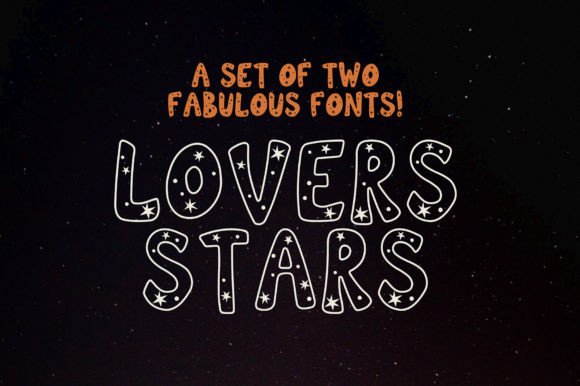
Embark on a cosmic adventure with Lovers Stars Font, the most dazzling font that will ignite your creativity and elevate your designs to stellar heights. Enter a realm of imagination where stars twinkle and hearts intertwine, creating a typographic masterpiece that captures the essence of love and enchantment.
Unleash the boundless potential of Lovers Stars, a decorative font that shines brighter than a thousand suns. With its captivating style and enchanting aura, this font is your celestial muse, guiding you through a universe of design possibilities.
As you traverse the cosmos with Lovers Stars, discover the endless wonders that await. From lettering that dances across the page like stardust to drawings that come alive with a celestial charm, this font is your cosmic paintbrush, transforming your artistic visions into reality.
Immerse yourself in the celestial beauty of Lovers Stars, a font that dances with stars and whispers tales of romance. Create signage that sparkles like a starry night, and design stickers that capture the whimsy of a shooting star. This font is your celestial companion, inviting you to explore the boundless reaches of creativity.
Feel the cosmic energy surging through your designs as you embrace Lovers Stars, a font that ignites passion and fuels imagination. Whether you're crafting retro designs that evoke a sense of nostalgia or creating modern masterpieces that push the boundaries of creativity, this font is your cosmic compass, guiding you towards design excellence.
With Lovers Stars, the universe is your canvas, and your creativity is the brush. Immerse yourself in the celestial wonders of this font and let your designs shine brighter than the stars themselves. Fall in love with Lovers Stars today and embark on a creative journey that will leave you starstruck.